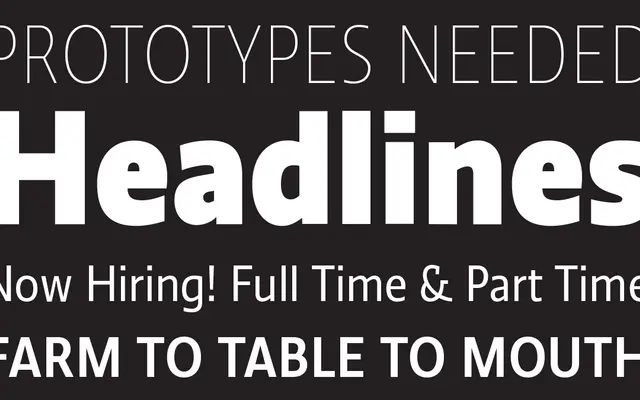
Ratio Display
A display serif family of six weights designed to balance constructed geometry with calligraphic warmth for both print and screen use.
Ratio Display offers six weights from Thin to Heavy, each positioned for headline and display settings. The design sits between geometric construction and written forms, giving it more personality than a purely rational serif without sacrificing clarity. Available through Adobe Fonts, it is pitched at designers who want a versatile, polished serif for editorial or branding work.
The typeface balances constructed and calligraphic influences, suggesting a contemporary serif with both geometric and humanist qualities suited to display use.